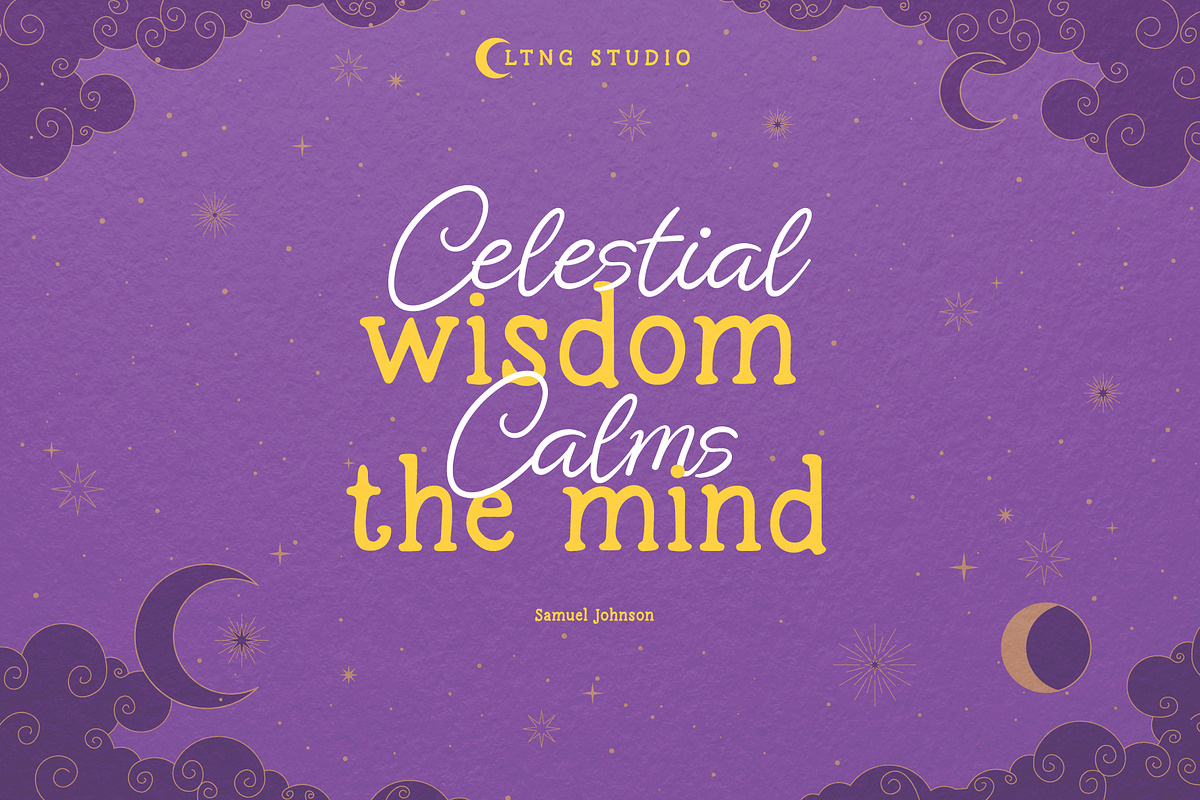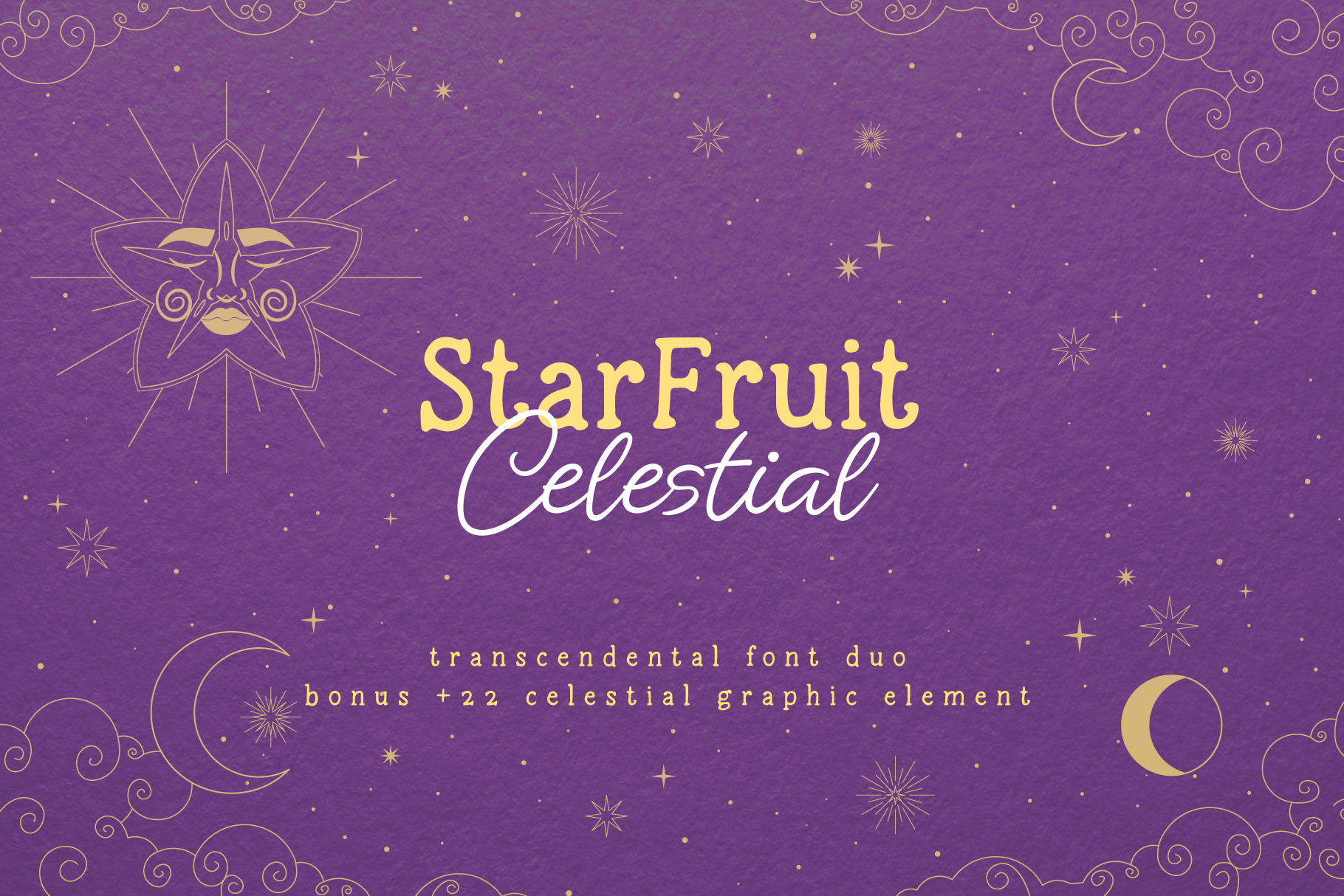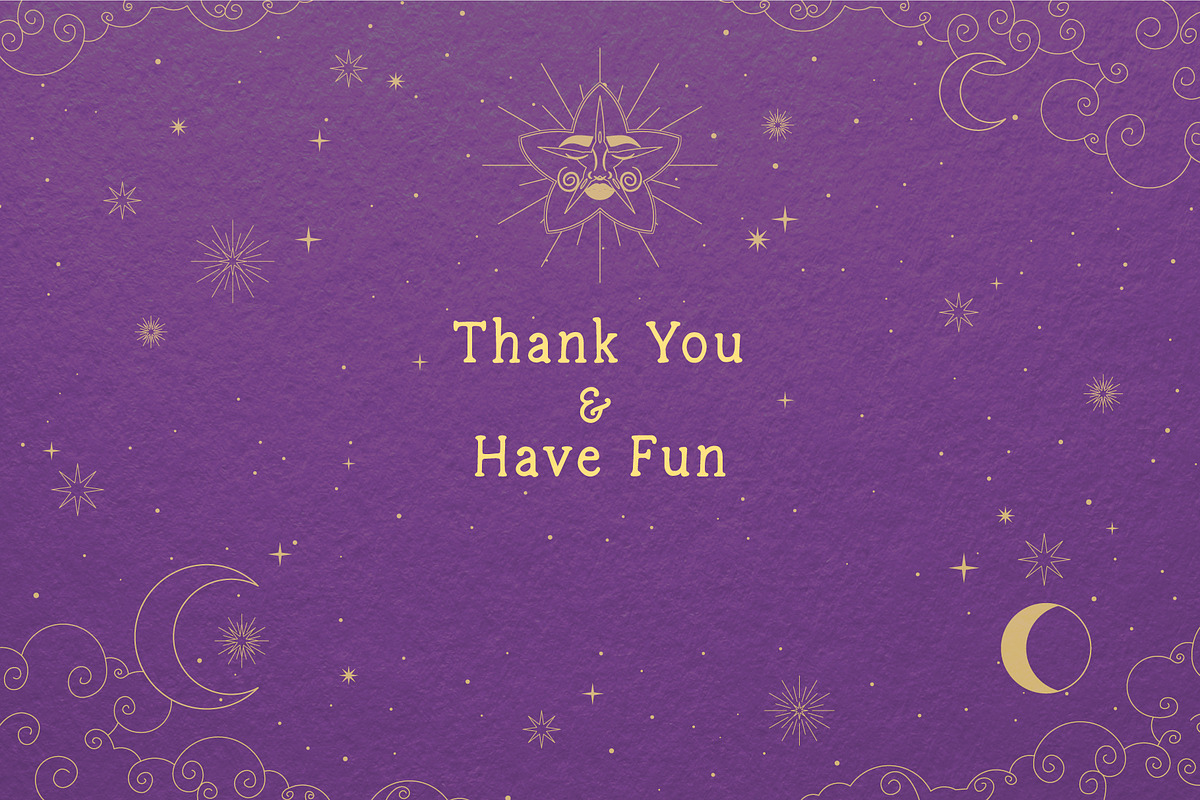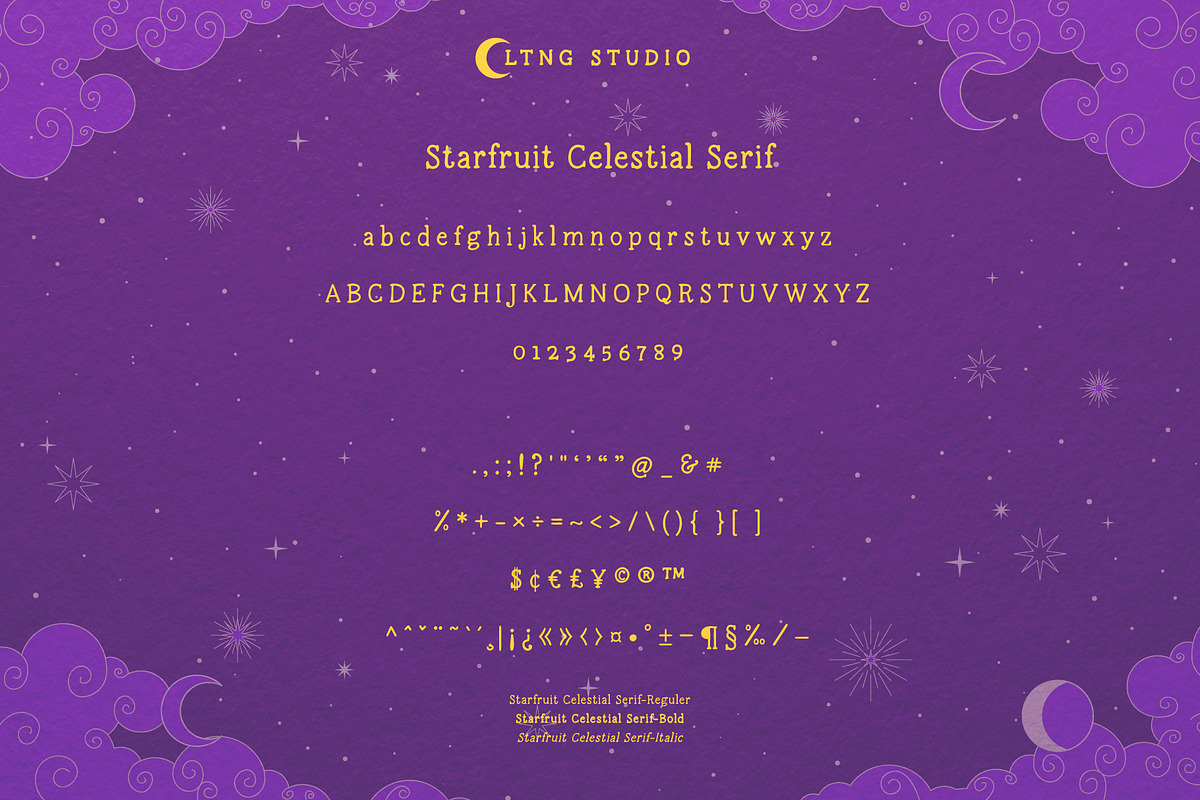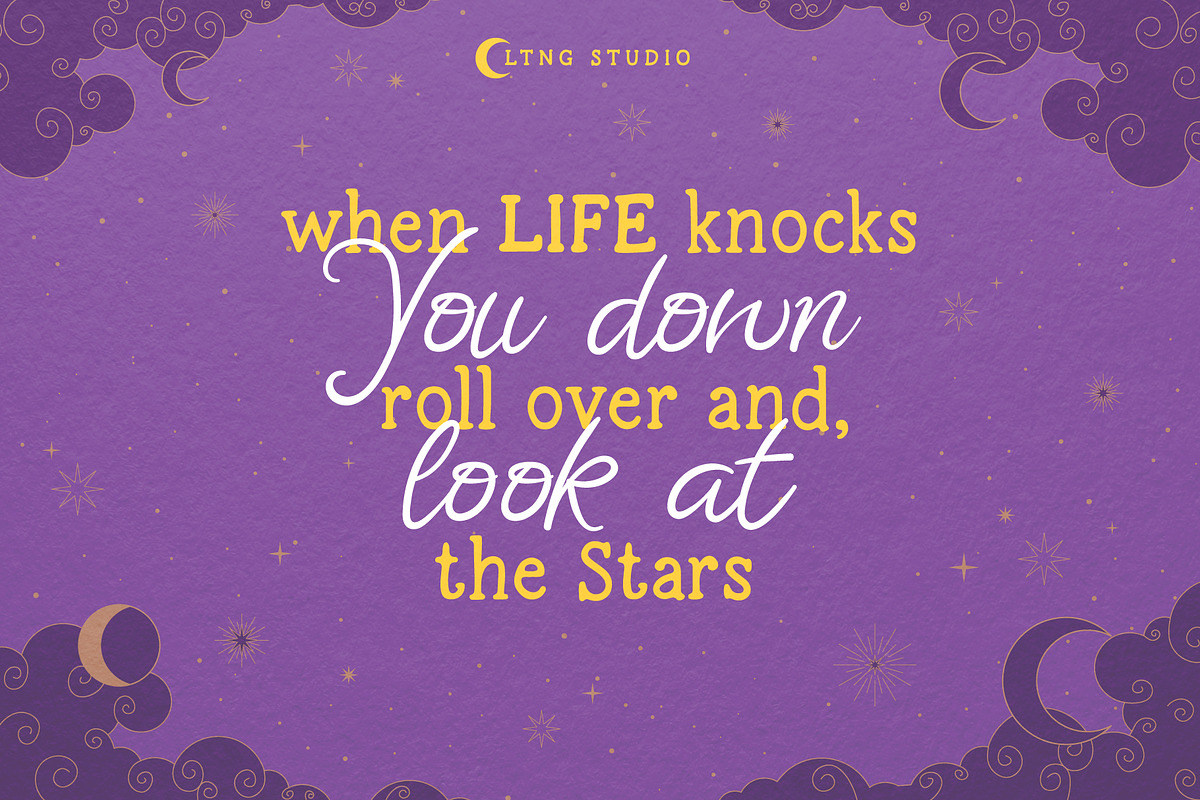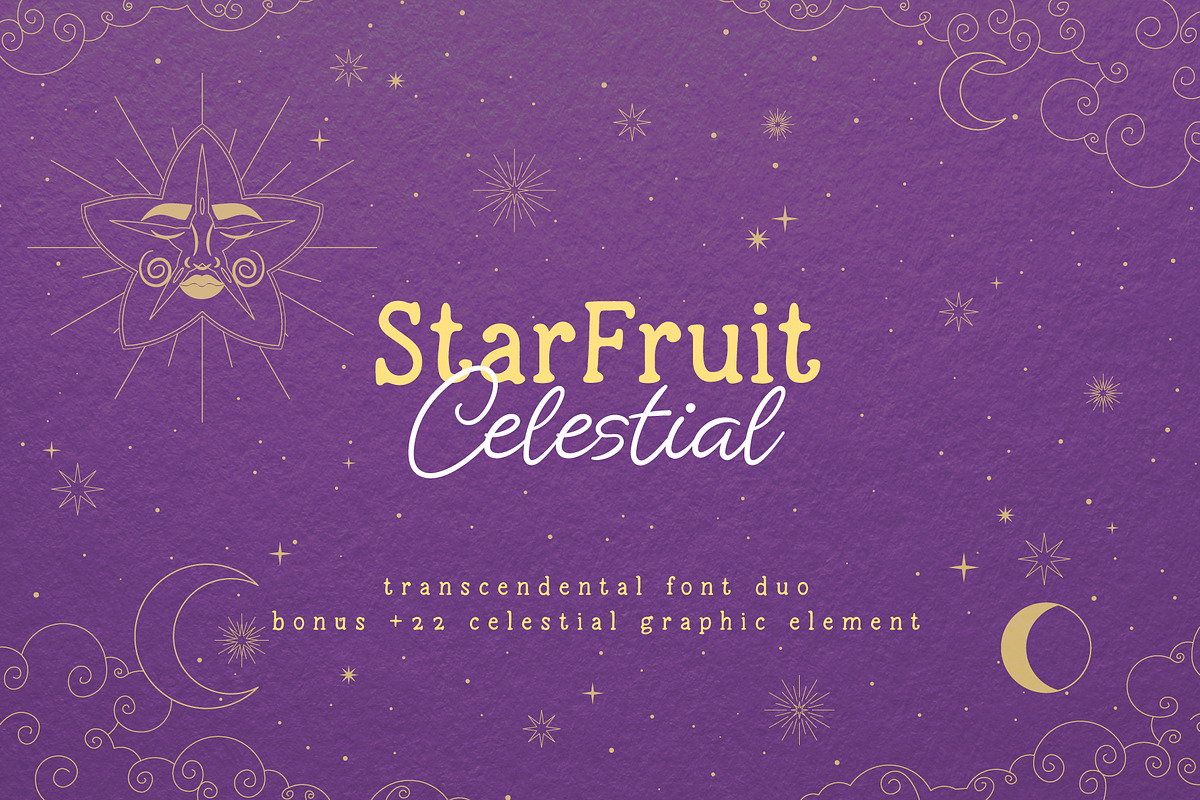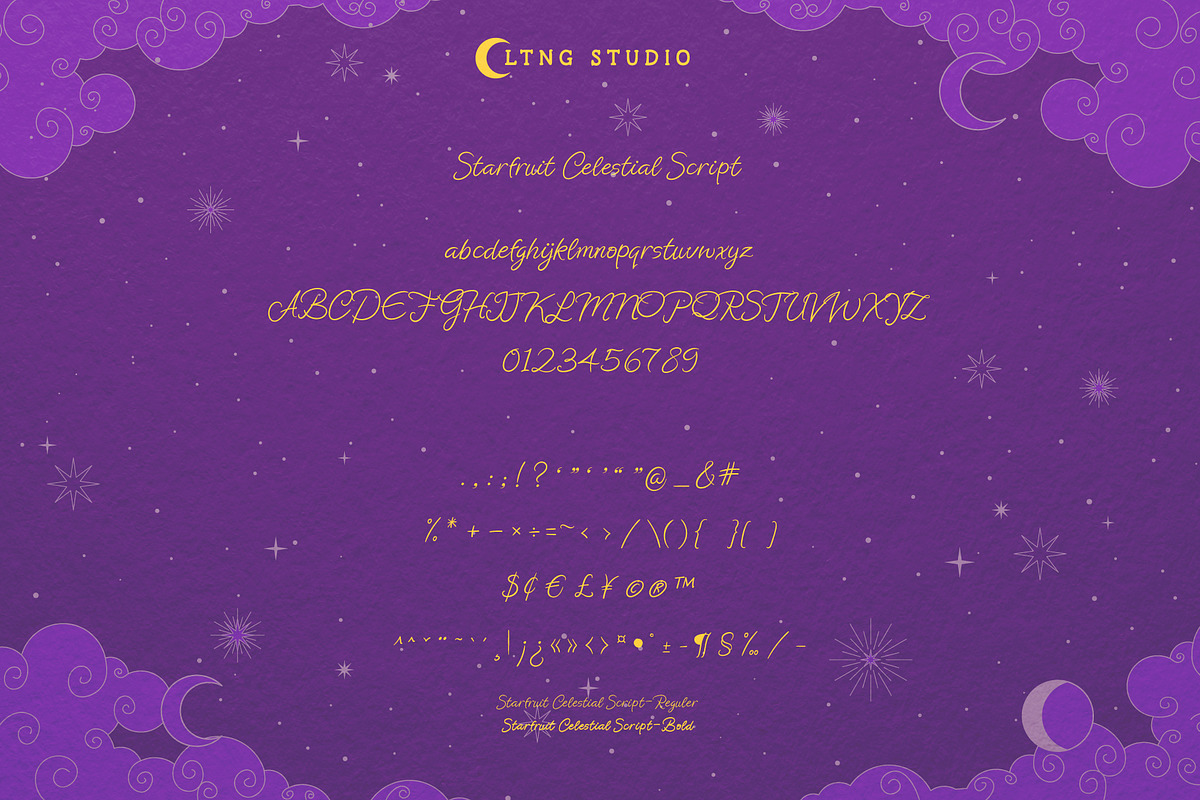
Starfruit Celestial Font Duo
Starfruit Celestial is a charming and cute font duo handwritten sans serif and script that will be perfect for books, children's books, logos, posters, branding, and celestial project.
- Starfruit Celestial Script Regular
- Starfruit Celestial Script Bold
- Starfruit Celestial Serif Regular
- Starfruit Celestial Serif Bold
- Starfruit Celestial Serif Italic